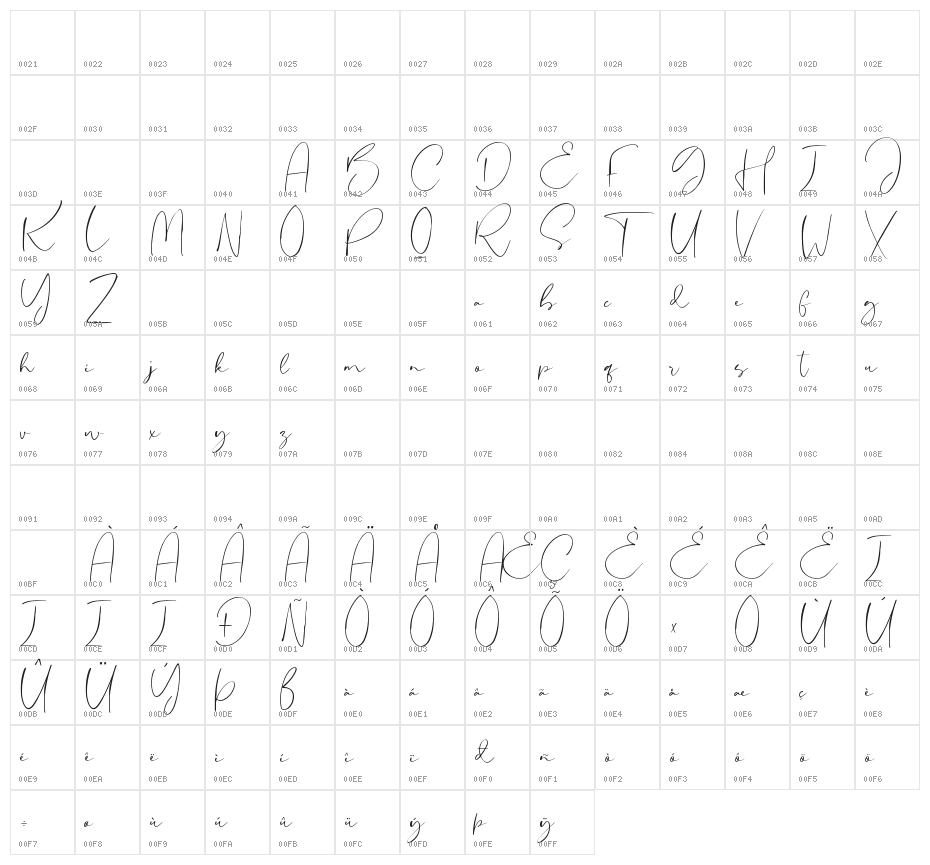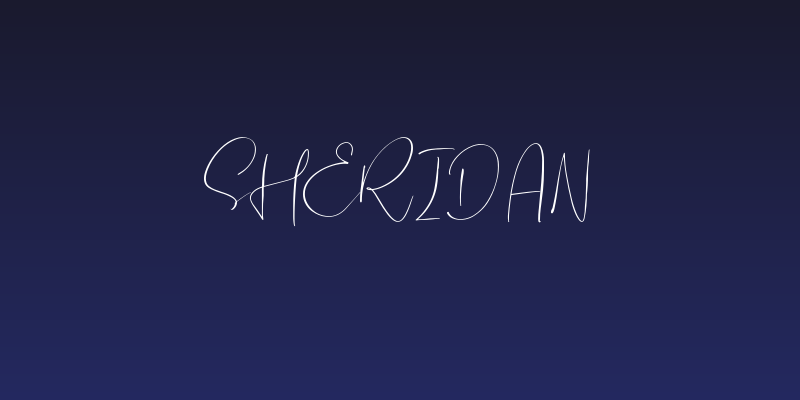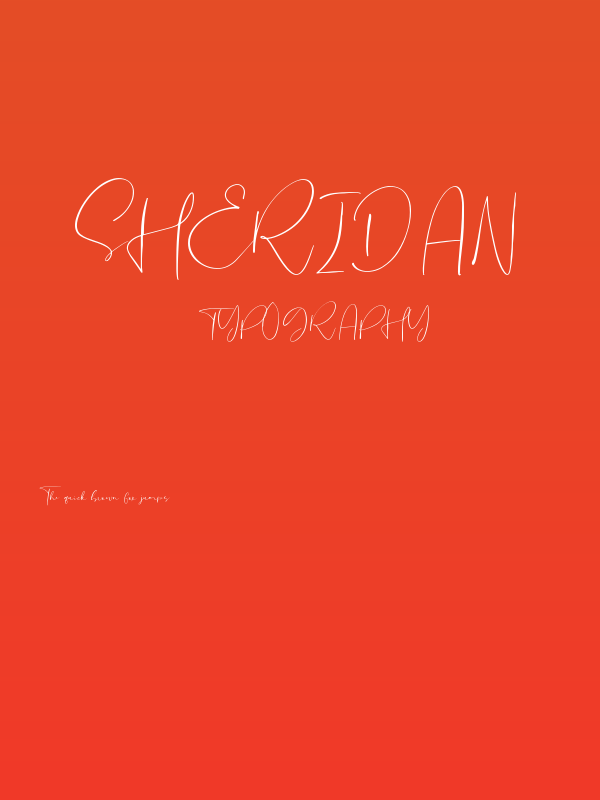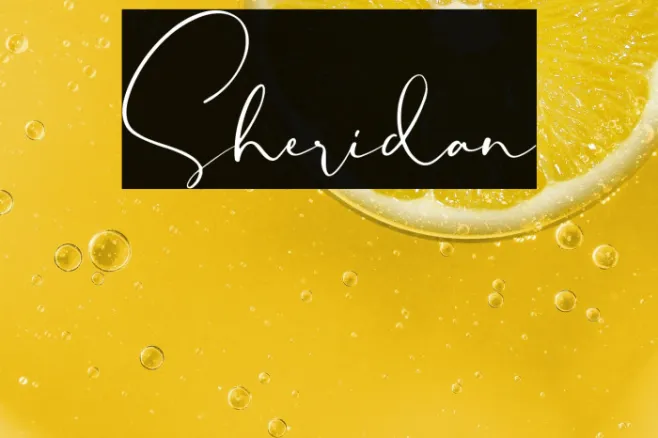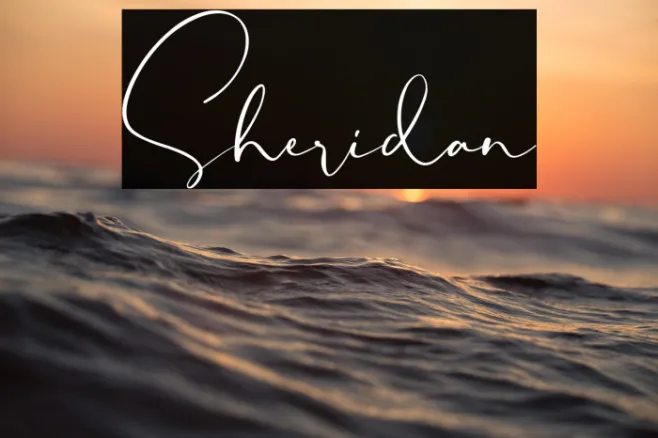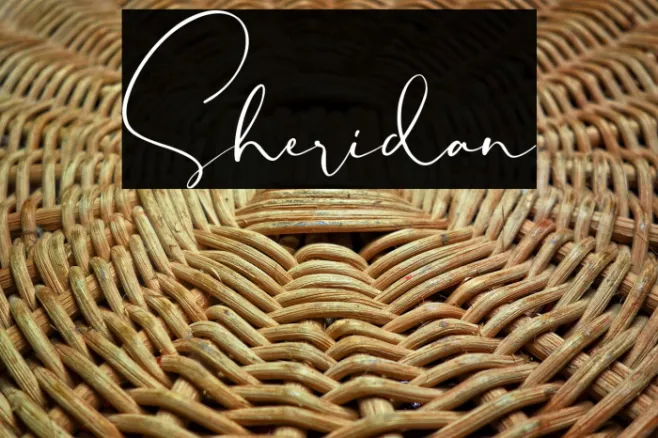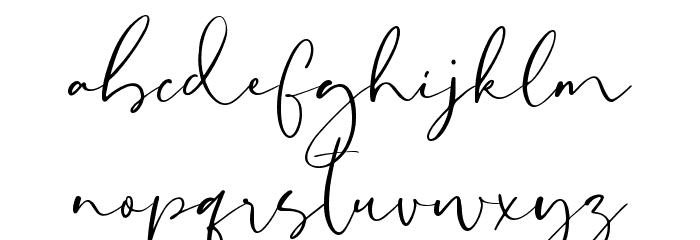
Sheridan Font
Sheridan Description
This font exudes a modern, handwritten style with a touch of elegance and fluidity. The uppercase letters are characterized by their tall, slender forms with a slight slant, giving them a dynamic and graceful appearance. The lowercase letters are more rounded and connected, enhancing the handwritten feel. The strokes vary in thickness, providing a medium contrast that adds to the font's overall charm. The characters are well-spaced, allowing for readability while maintaining the artistic flair. This font is perfect for projects that require a personal touch, such as invitations, greeting cards, or branding materials.
SHERIDAN UPPERCASE
SHERIDAN LOWERCASE
SHERIDAN OTHER CHARS